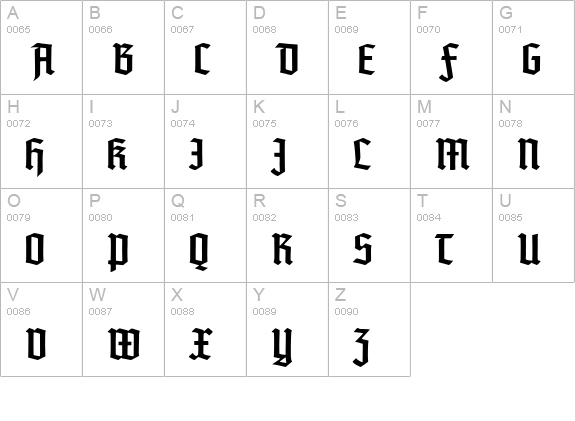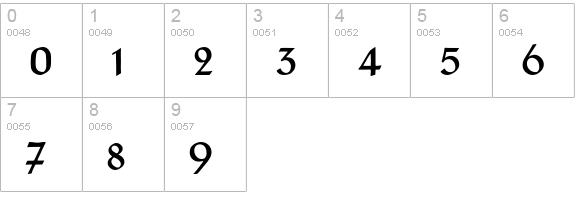
Introducing TypographerTextur, a stunningly unique and versatile font that is sure to captivate your audience. This font brings together the elegance of typography with the raw beauty of textured elements, creating a perfect balance of sophistication and creativity. TypographerTextur is designed with utmost precision, ensuring every character is meticulously crafted to deliver a visually appealing and highly legible typeface. Its intricate details and subtle texture give each letter a sense of depth and dimension, making it a true standout in any design project. What sets TypographerTextur apart is not only its exceptional aesthetics, but also its versatility. This font seamlessly adapts to various design styles, from vintage and retro to modern and futuristic. It effortlessly elevates any project, whether it's a logo, branding, packaging, or headline, to a whole new level of visual excellence. But that's not all – TypographerTextur is also available for free! Yes, you read that right. This remarkable font can be freely downloaded at FontsMarket.com, making it accessible to designers, enthusiasts, and anyone looking to add a touch of elegance and creativity to their creations. With its high-quality design and free availability, TypographerTextur is truly a game-changer in the world of typography. So why wait? Don't miss out on the opportunity to enhance your designs with this exceptional font. Download TypographerTextur today at FontsMarket.com and let your creativity soar to new heights.